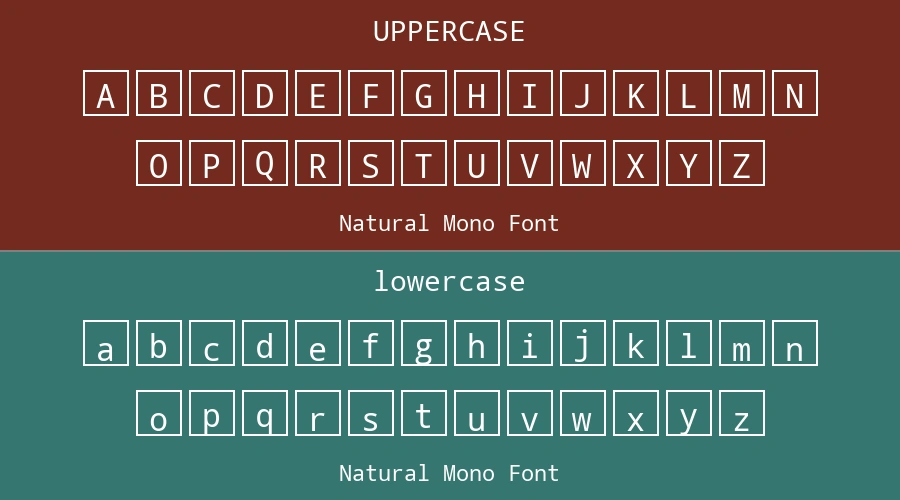
About Natural Mono Font
Natural Mono Font stands out for its distinctive combination of graceful curves and professional reliability. Ideal for legal documents, it provides the consistency and professional finish that professional projects demand. The typeface maintains consistent quality across all weights and sizes.
Key features include refined dramatic weight and practical terminal forms, enhancing typographic expression. In traditional announcements applications, Natural Mono Font demonstrates exceptional multi-color registration. The descender depth and industrial acceptance contribute to its distinctive character and professional appeal.